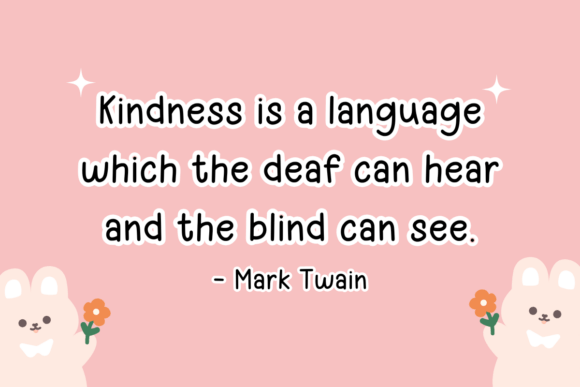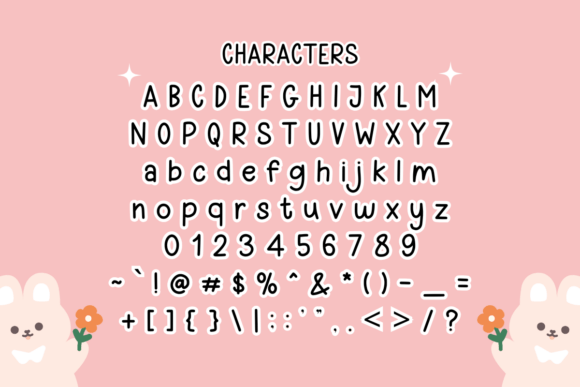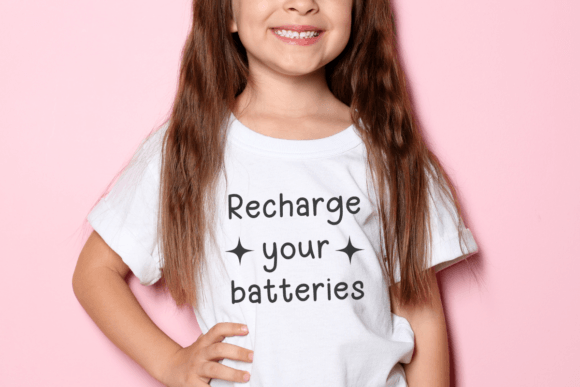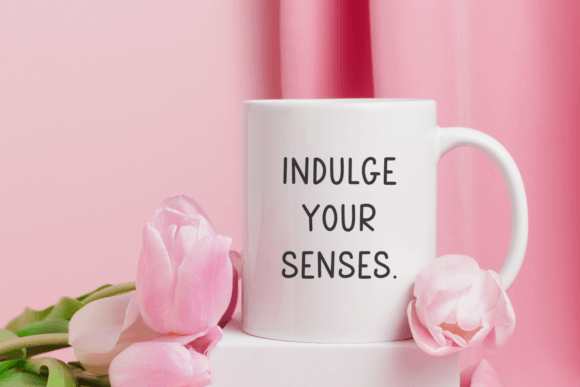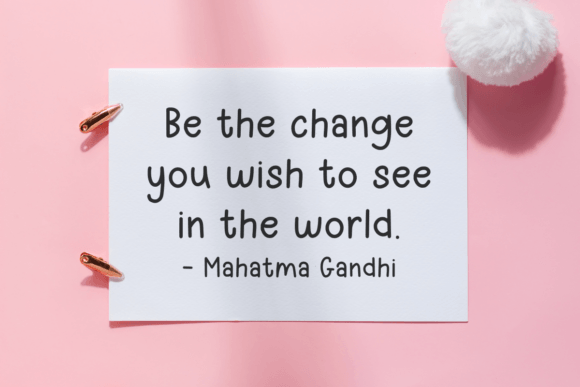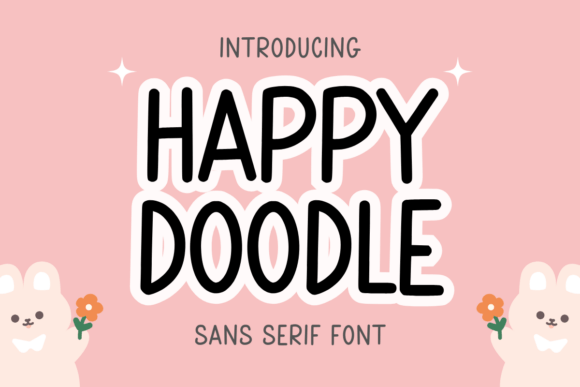
Introducing Happy Doodle Font: The Perfect Handwritten Sans Serif Font for Creative Projects
Are you a designer, crafter, or DIY enthusiast looking for a fun and cute font to add a personal touch to your projects? Look no further than Happy Doodle Font! This delightful handwritten sans serif font is perfect for a wide range of creative applications, from memos and journals to cards, invitations, and scrapbooks.
What is Happy Doodle Font?
Happy Doodle Font is a carefully crafted handwritten font that exudes a sense of playfulness and joy. Its sans serif design makes it easy to read and versatile enough to use in various contexts. Whether you’re a teacher looking for a fun font to use in your classroom materials, a greeting card designer seeking to create cheerful and uplifting cards, or a crafter wanting to add a personal touch to your DIY projects, Happy Doodle Font is the perfect choice.
Happy Doodle Font is an excellent choice for a wide range of creative projects, including:
- Memos and notes: Add a playful touch to your memos and notes with Happy Doodle Font.
- Journals and planners: Create a fun and inspiring journal or planner with this delightful font.
- Cards and invitations: Design beautiful and cheerful greeting cards and invitations for any occasion.
- Scrapbooks: Add a personal touch to your scrapbooks and photo albums with Happy Doodle Font.
- KDP interiors: Use Happy Doodle Font to create engaging and visually appealing interiors for your Kindle Direct Publishing (KDP) books.
Why Choose Happy Doodle Font?
So, why should you choose Happy Doodle Font for your creative projects? Here are just a few reasons:
- Fun and playful: Happy Doodle Font is the perfect way to add a touch of whimsy and fun to your projects.
- Easy to read: The sans serif design of Happy Doodle Font makes it easy to read, even at small sizes.
- Versatile: This font is suitable for a wide range of creative projects, from digital designs to print materials.
- Perfect for teachers: Happy Doodle Font is an excellent choice for teachers looking for a fun and engaging font to use in their classroom materials.
Tips for Using Happy Doodle Font
Here are a few tips for getting the most out of Happy Doodle Font:
- Use it with bright colors: Happy Doodle Font looks amazing with bright, bold colors. Try pairing it with a fun color scheme to create a lively and playful design.
- Experiment with different sizes: Happy Doodle Font is versatile enough to use at a range of sizes. Experiment with different font sizes to create visual interest and hierarchy in your designs.
- Pair it with other fonts: Happy Doodle Font pairs well with other fonts, such as serif fonts or script fonts. Try combining it with another font to create a unique and eye-catching design.
Happy Doodle Font is a fun and versatile handwritten sans serif font that’s perfect for a wide range of creative projects. Its playful and cheerful design makes it an excellent choice for designers, crafters, and DIY enthusiasts looking to add a personal touch to their work. Whether you’re creating memos, journals, cards, or scrapbooks, Happy Doodle Font is sure to bring a smile to your face and inspire your creativity.